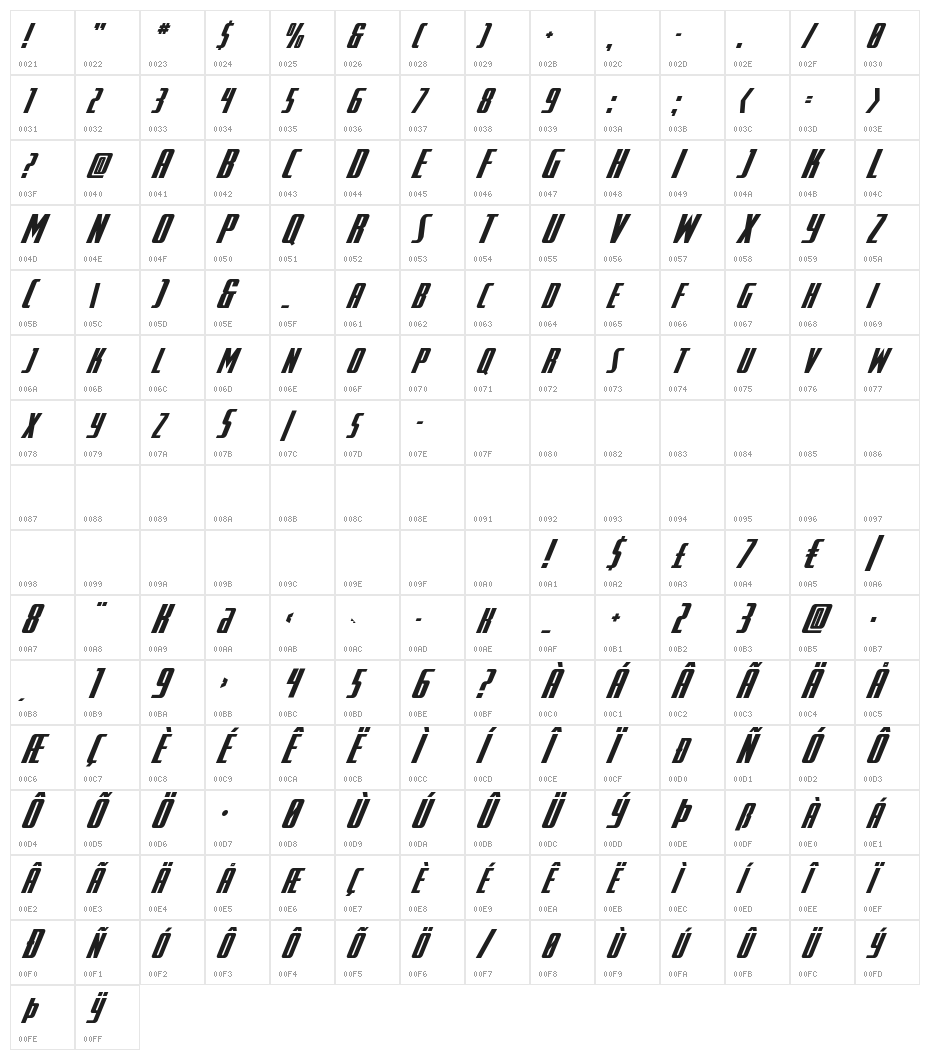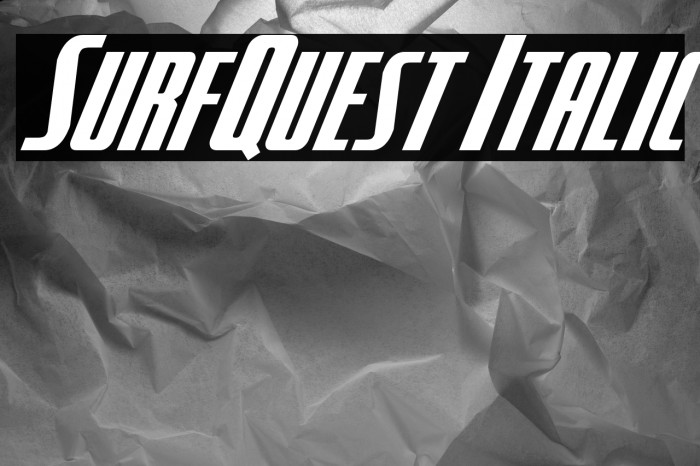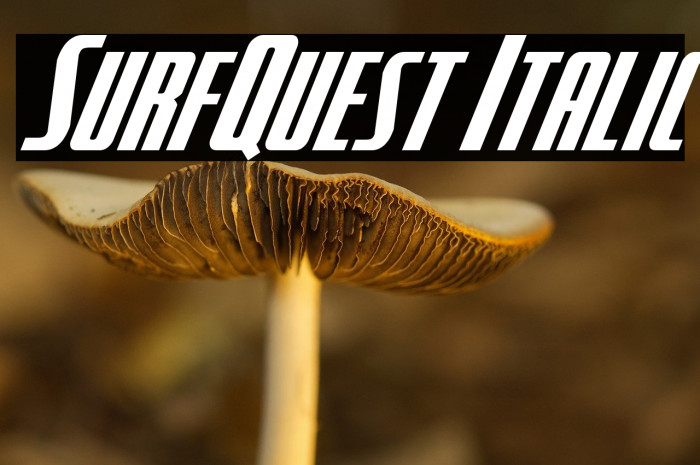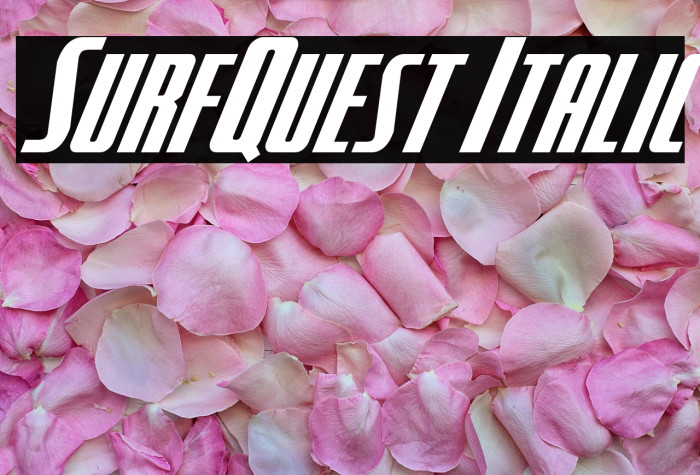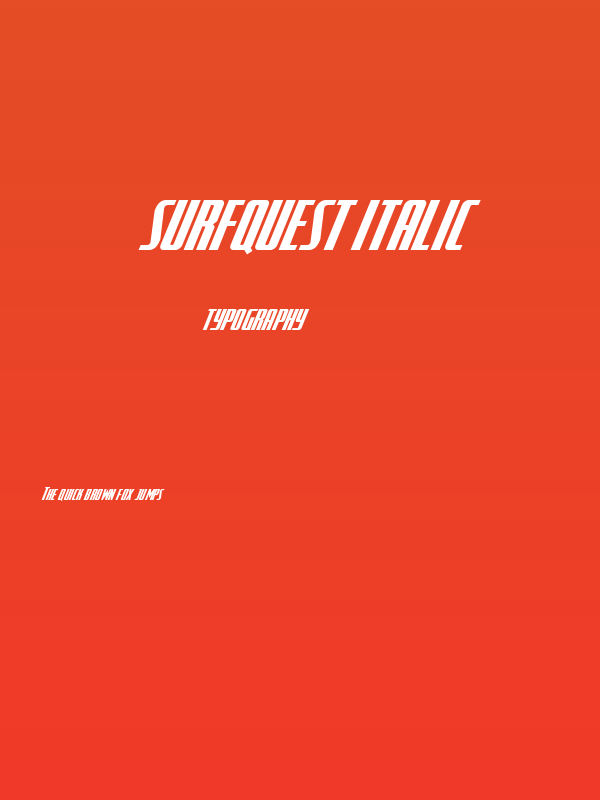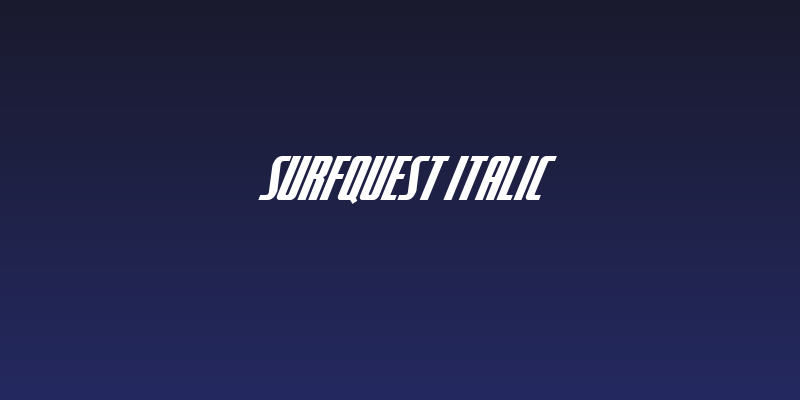
SurfQuest Italic Font
SurfQuest Italic Description
This font features a bold and dynamic style with a strong italic slant, giving it a sense of motion and energy. The characters are tightly spaced, enhancing its compact and impactful appearance. The strokes are thick and consistent, providing a uniform look across all characters. The uppercase and lowercase letters maintain a cohesive design, while the numerals and special characters complement the overall aesthetic. This font's aggressive and modern style makes it suitable for projects that require a bold statement.
Proposed ProjectsIdeal for sports branding, action-themed posters, dynamic logos, and eye-catching headlines.